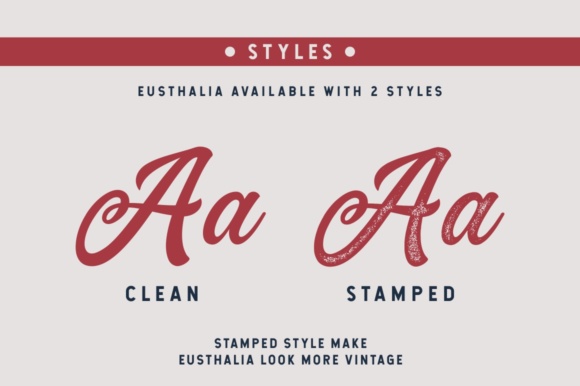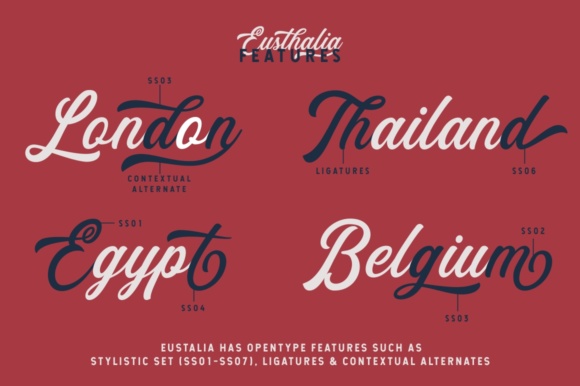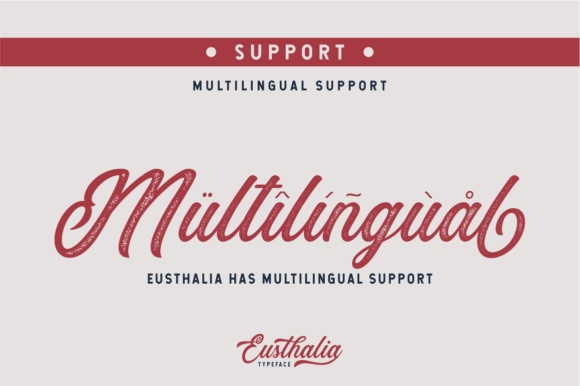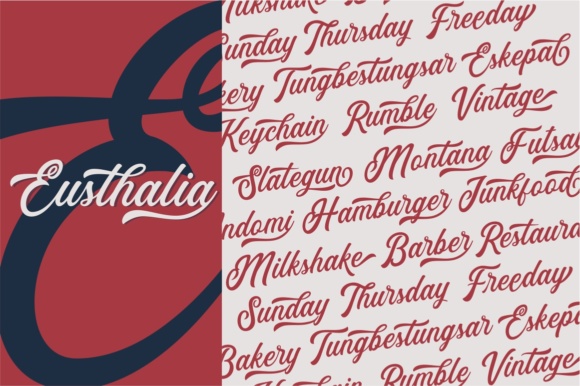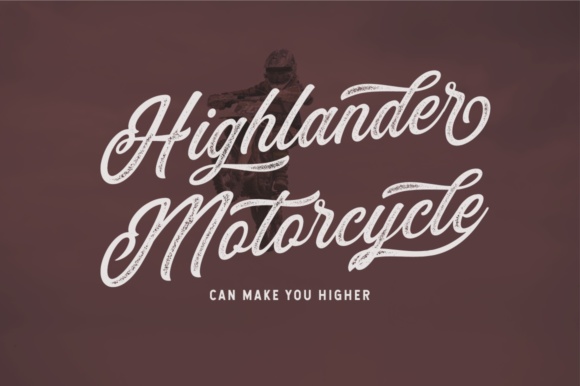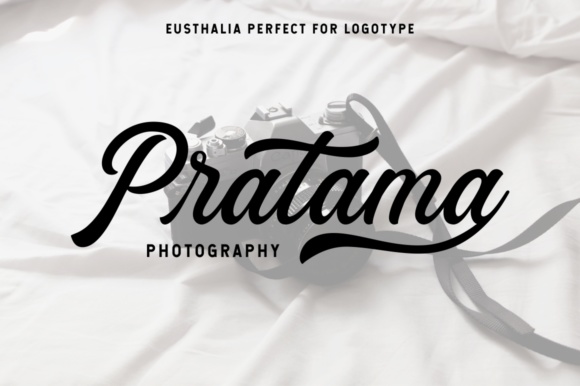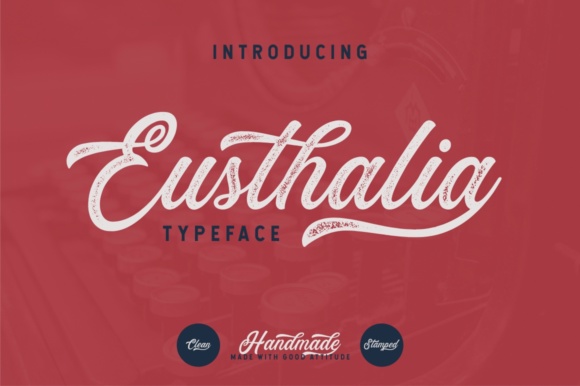
Eusthalia Font: Elevate Your Designs with a Touch of Vintage Elegance
Are you a designer or crafter looking for a font that can add a touch of vintage elegance to your designs? Look no further than Eusthalia Font, a script font that offers two unique styles: Clean and Stamped. With its versatility and charm, Eusthalia Typeface is perfect for a wide range of design applications, from branding and logo design to digital lettering arts, T-shirt designs, and posters.
What is Eusthalia Font?
Eusthalia Font is a script font that boasts two distinct styles: Clean and Stamped. The Clean style offers a crisp, modern look, while the Stamped style adds a touch of vintage flair with its distressed texture. This dual-style approach makes Eusthalia incredibly versatile, allowing designers to use it in a variety of contexts.
Key Features of Eusthalia Font
- Dual Style: Eusthalia offers two styles, Clean and Stamped, giving designers the flexibility to choose the look that best suits their project.
- Vintage Appeal: The Stamped style’s distressed texture gives Eusthalia a unique vintage charm that’s perfect for designs that require a nostalgic feel.
- Script Elegance: Eusthalia’s script design adds a touch of elegance and sophistication to any design, making it ideal for high-end branding and luxury goods.
- High Versatility: Eusthalia can be used in a wide range of design applications, from digital lettering arts to T-shirt designs and posters.
Design Applications for Eusthalia Font
Eusthalia Font is an incredibly versatile typeface that can be used in a variety of design applications. Here are some of the most popular uses for Eusthalia:
Branding Design
Eusthalia’s elegant script design and vintage charm make it an excellent choice for branding design. Whether you’re creating a logo, business card, or packaging design, Eusthalia can help you establish a strong brand identity.
Logo Design
Eusthalia’s unique blend of modern and vintage elements makes it an excellent choice for logo design. The font’s Clean style is perfect for modern, minimalist logos, while the Stamped style adds a touch of nostalgia and character.
Digital Lettering Arts
Eusthalia’s script design and elegant lines make it an excellent choice for digital lettering arts. Whether you’re creating a quote, poster, or social media graphic, Eusthalia can add a touch of sophistication and elegance.
T-Shirt/Apparel Design
Eusthalia’s bold, yet elegant design makes it an excellent choice for T-shirt and apparel design. The font’s Stamped style is particularly well-suited for vintage-inspired designs, while the Clean style offers a more modern look.
Poster Design
Eusthalia’s large, elegant letters make it an excellent choice for poster design. Whether you’re creating a movie poster, event poster, or advertising poster, Eusthalia can help you grab attention and convey your message.
Tips for Using Eusthalia Font
Here are some tips for getting the most out of Eusthalia Font:
- Experiment with Styles: Eusthalia’s dual-style approach offers a lot of flexibility. Experiment with both the Clean and Stamped styles to find the look that best suits your project.
- Pair with Other Fonts: Eusthalia pairs well with a variety of fonts, from modern sans-serifs to traditional serif fonts. Experiment with different pairings to find the combination that works best for your design.
- Pay Attention to Kerning: As with any script font, kerning is important to ensure that your text looks elegant and refined. Take the time to adjust the kerning to get the best results.
| Author | YdhraStudio |
Eusthalia Font is a versatile and elegant script font that’s perfect for designers and crafters looking to add a touch of vintage charm to their designs. With its dual-style approach, elegant design, and high versatility, Eusthalia is an excellent choice for a wide range of design applications. Whether you’re creating a branding design, logo design, digital lettering arts, T-shirt design, or poster, Eusthalia Font is sure to elevate your designs to the next level.